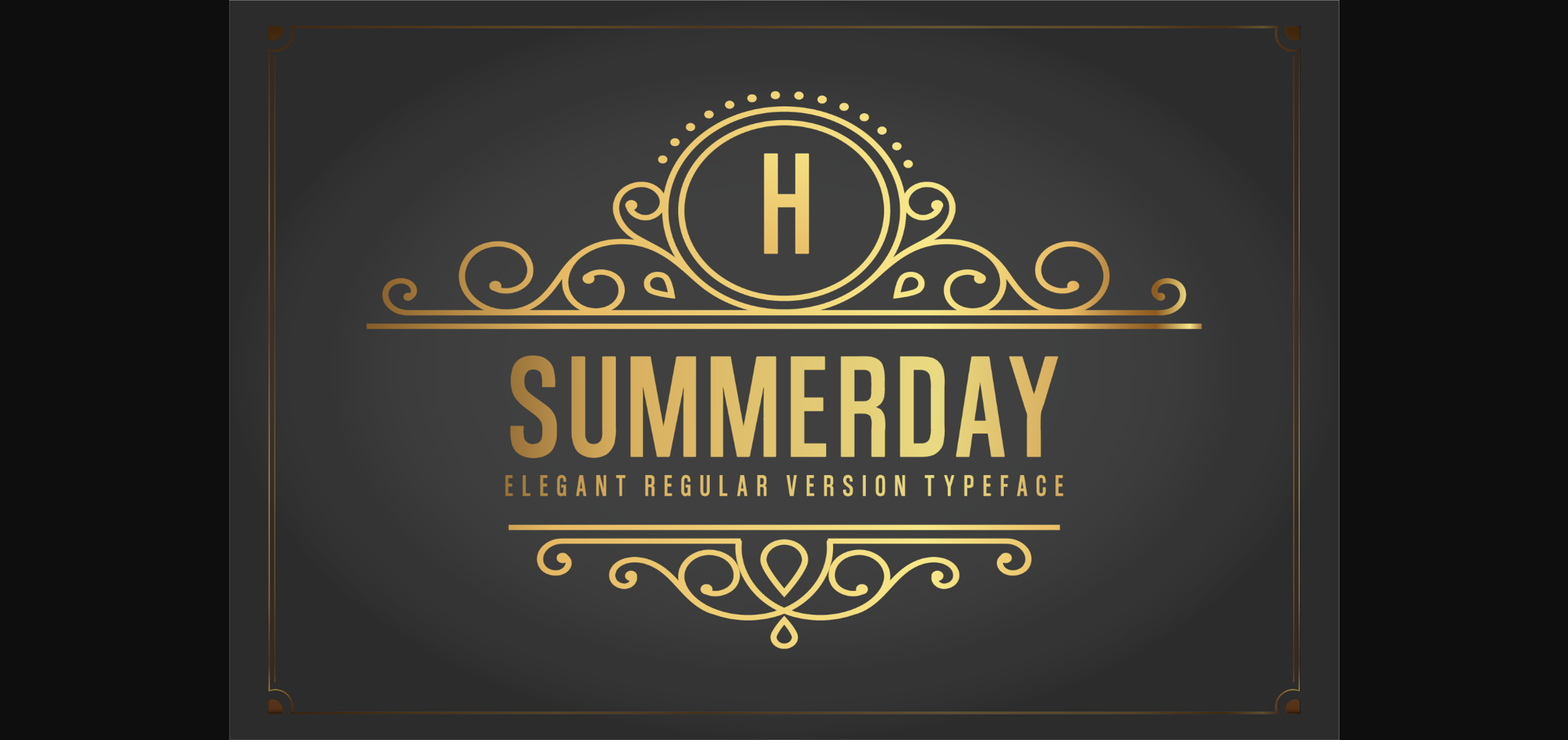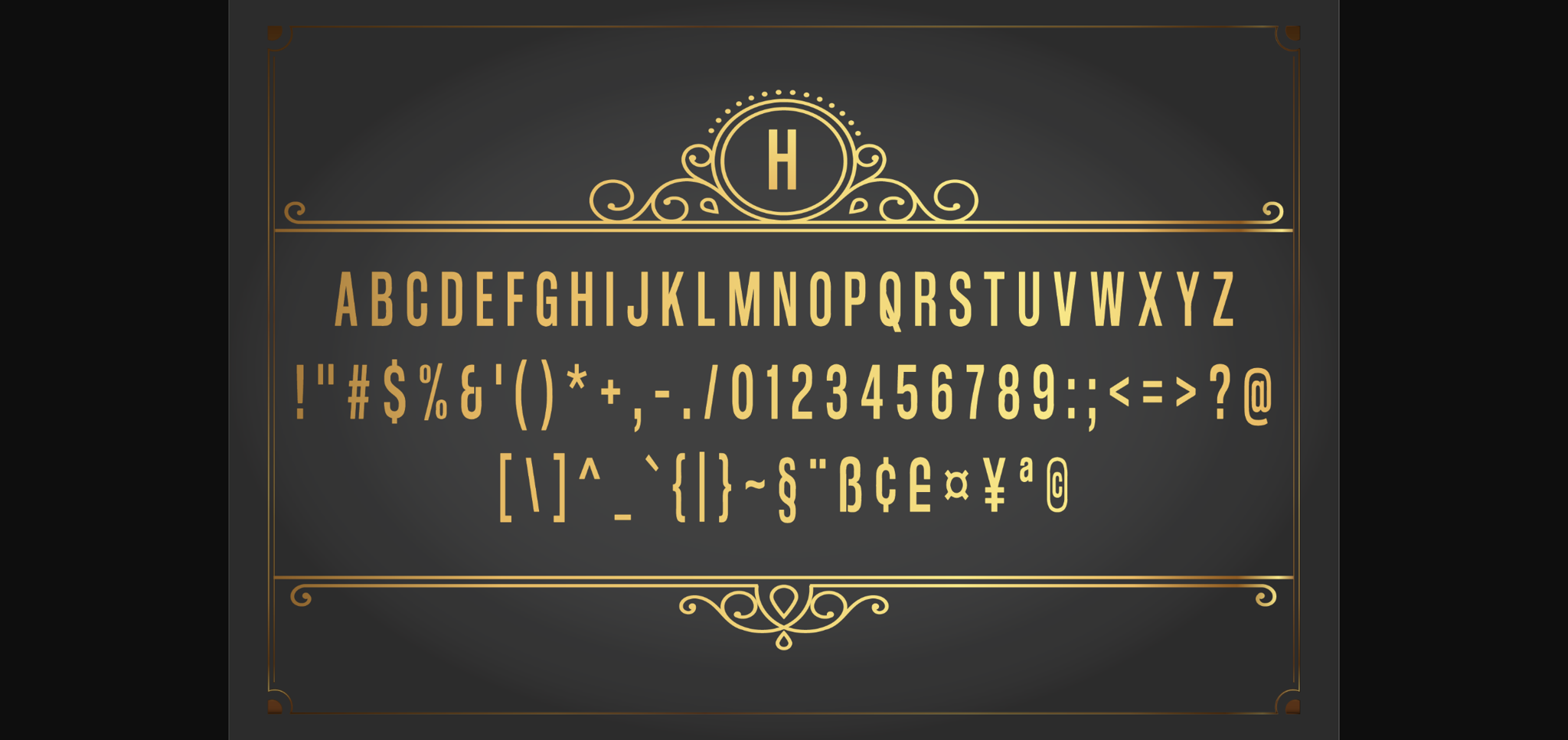
Summerday Font
About Summerday Font
Summerday is designed for maximum visual and emotional impact. This elegant sans serif font is suitable for posters, social media, headlines, titling, large-format print – and anywhere else you want to be noticed.